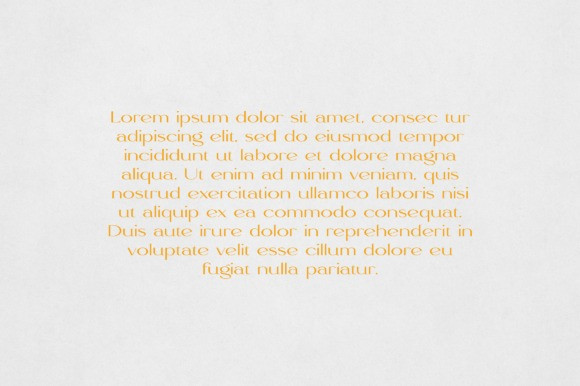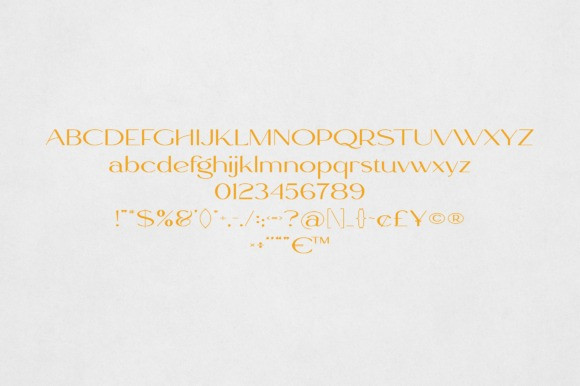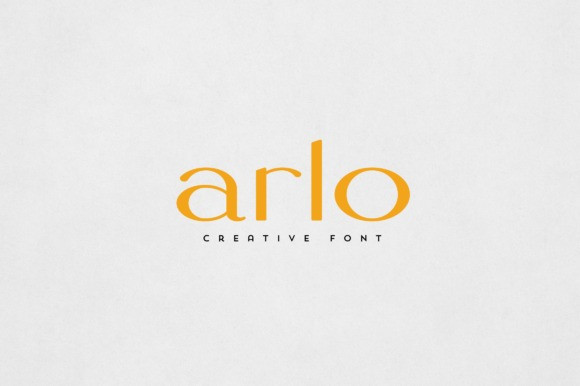
Arlo Font
Arlo Font is an elegant and versatile font that will make your typography truly unique! It will enchant every logo, branding, headline, or plain text!